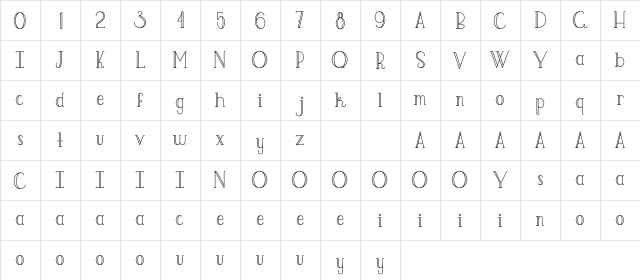
Klasse Regular
| Designer | Ian Shapen |
Design Context for Klasse Typeface
Klasse takes a measured approach to typography — its balanced proportions and neutral character make it a reliable workhorse for both digital and print work.
Pro Tip: Use Klasse in both headline and body roles to test its range before committing to a single application.